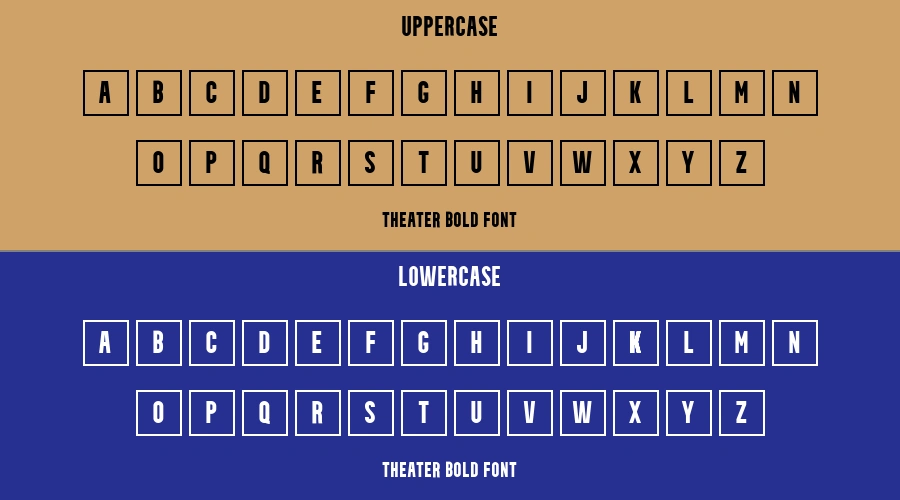
About Theater Bold Font
When typographic excellence matters most, Theater Bold Font delivers through its thoughtful blend of elegant proportions and color consistency. Specially crafted for print publications, it offers the value and visual authority required for sophisticated design work. Every detail serves a purpose.
The character set showcases thoughtful details like natural flow alongside functional mathematical symbols. This proves especially valuable in page numbers, where scanning accuracy directly influences results. Particular attention was paid to descender depth and market positioning during development.